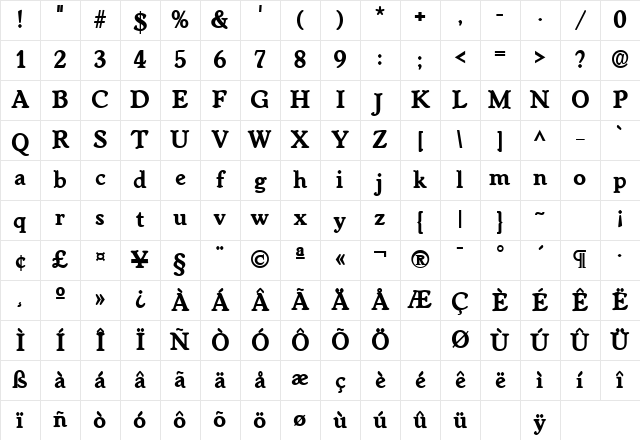
WorcesterLH Bold Free Font
WorcesterLH Bold
WorcesterLH Family
Design Context for WorcesterLH
WorcesterLH is a composed and adaptable typeface that performs quietly and consistently across a wide range of design contexts. Its bold stroke weight gives it real presence on the page.